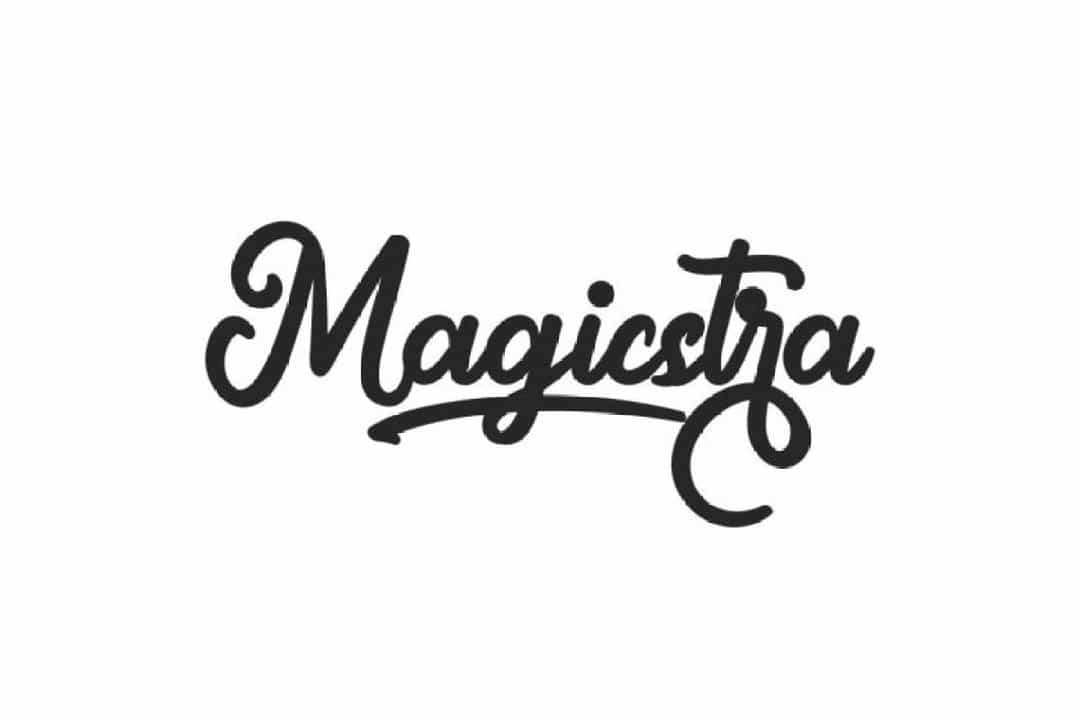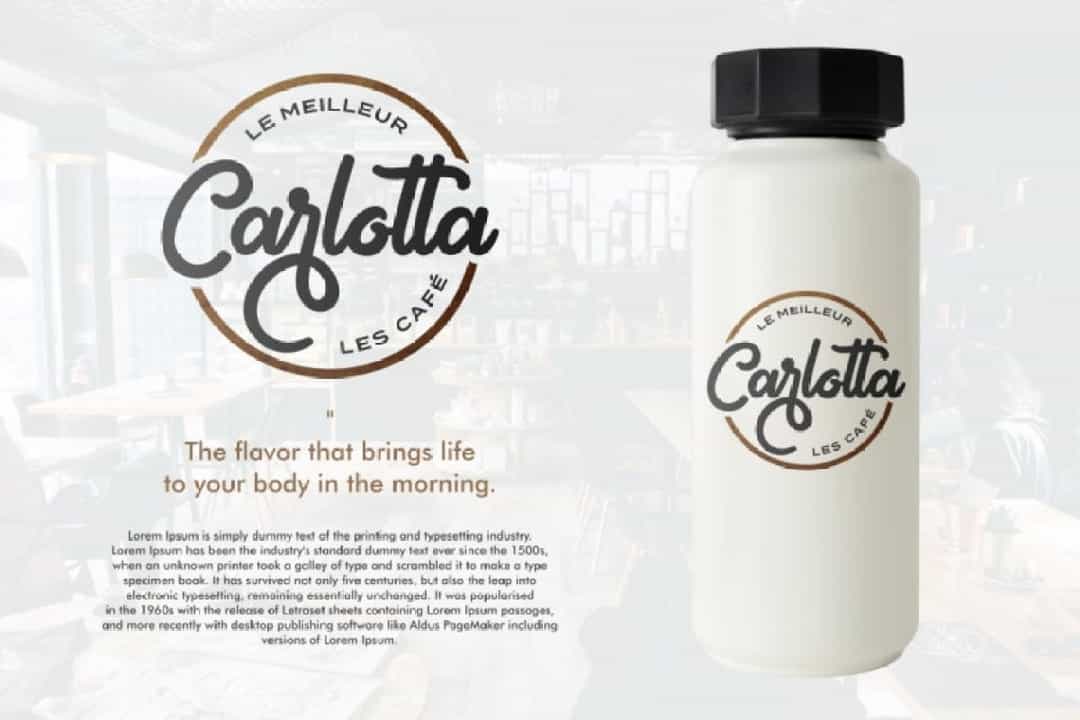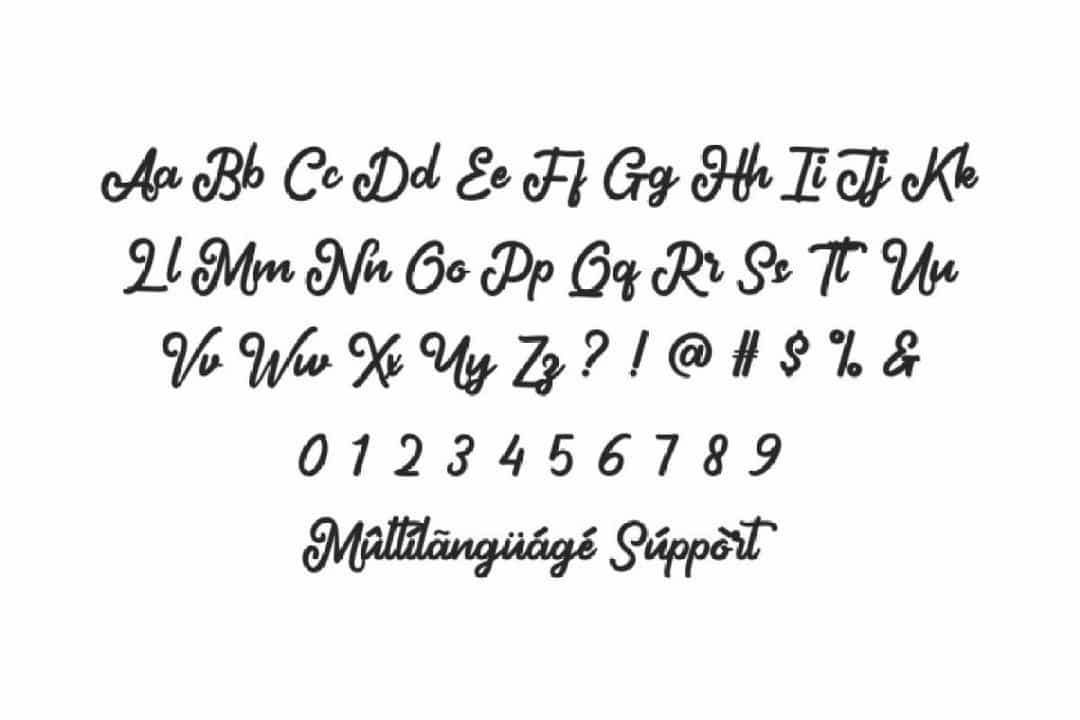
Magicstra is a modern calligraphy script font with monoline style. It can be suitable for many different projects which may or may not need an extended license including branding, logos, letterheads, business cards, and other printed material; flyers, posters and brochures; and many others.